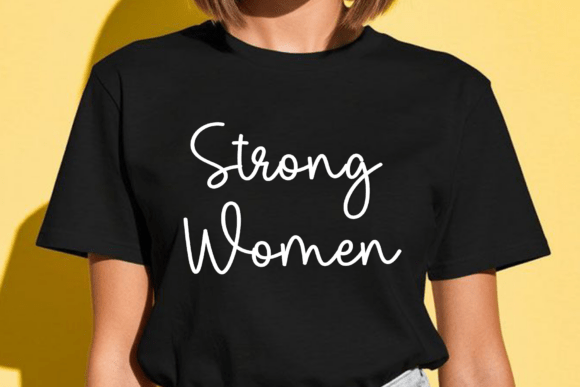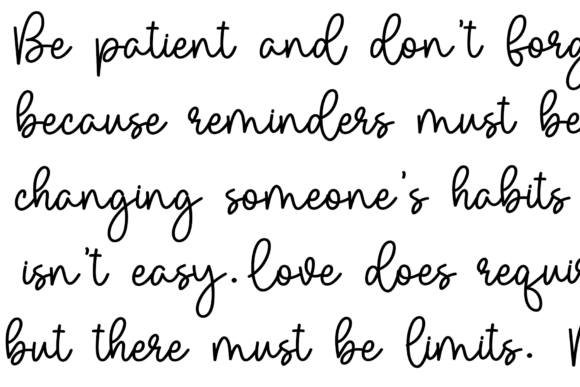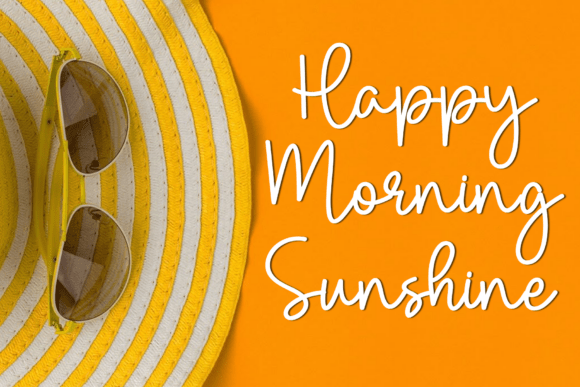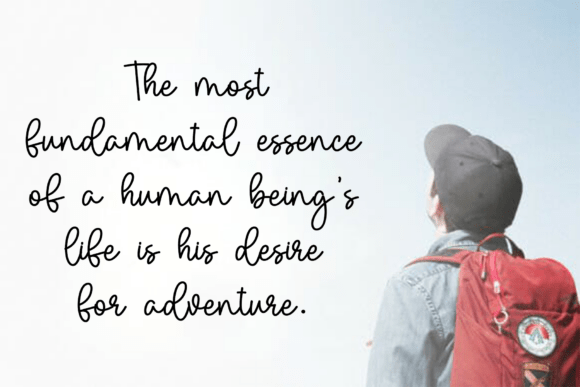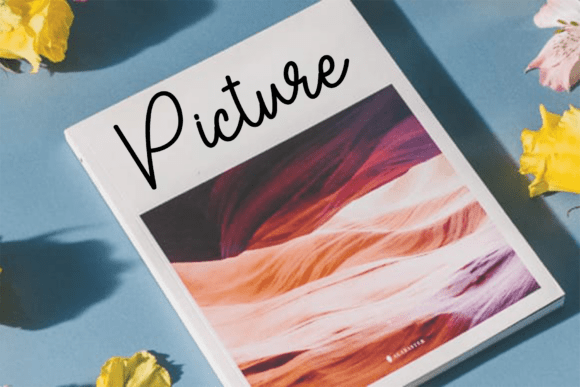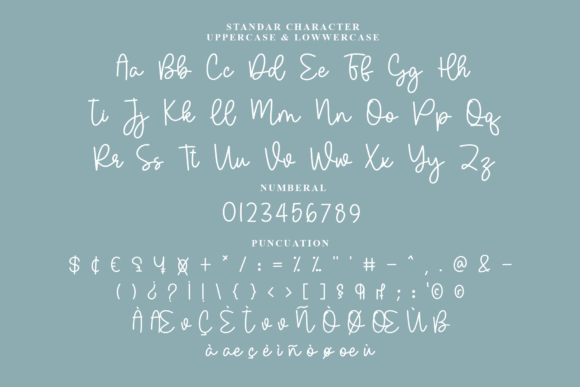
Introduction to Paradise Bubble Font
Have you ever been working on a creative project and felt like something’s missing – a touch of elegance, a dash of sophistication, a pinch of personality? That’s exactly what I experienced when I stumbled upon the Paradise Bubble Font, a game-changing design resource that elevated my entire project. This stunning script font has a way of transporting you to a world of refined beauty and effortless charm.
What sets the Paradise Bubble Font apart is its unique blend of modernity and hand-penned artistry. With its vertically elongated letterforms and smooth character joins, this high-quality font is perfect for boutique brand identities, professional signature watermarks, and elegant editorial titles. And the best part? You can download it for free, complete with a transparent background, making it a versatile design asset for any creative project.
As a designer, I can attest to the value of having a high-quality, versatile font like the Paradise Bubble Font in your toolkit. Whether you’re working on a logo, a brochure, or a digital header, this font is sure to bring a touch of sophistication and elegance to your design. So why not give it a try and see how it can transform your next creative project?
Key Features of Paradise Bubble Font
- Unique, hand-drawn design with a playful and whimsical feel, perfect for creative projects and design resources.
Honest Review: Paradise Bubble Font
I recently stumbled upon the Paradise Bubble Font, and I must say it’s been a game-changer for my creative projects. This font is perfect for adding a touch of whimsy and playfulness to any design.
- ✨ High-quality design: The font is crisp and clear, making it ideal for print or digital use.
- ✨ Versatile: The font is perfect for a variety of design projects, from children’s books to wedding invitations.
- ⚠️ Limited character set: The font only includes a limited number of characters, which may be a problem for more complex designs.
Overall, I’m really impressed with the Paradise Bubble Font. It’s a great resource for designers looking to add some creativity to their projects. While it has some limitations, it’s definitely worth checking out – especially if you’re looking for a free download with a high-quality design.
The Paradise Bubble Font is ideal for creative projects such as social media graphics, posters, and flyers. Its playful and whimsical design makes it perfect for adding a touch of fun and personality to your designs.